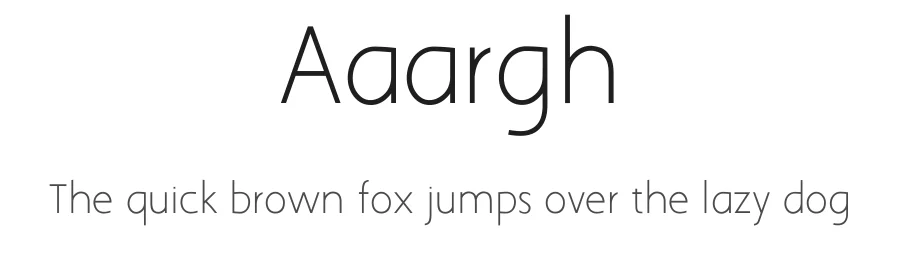
About Fh Space Font
Fh Space is a sans-serif font designed by Fictionalhead Design. It includes 98 glyphs, a regular weight, OTF (CFF) format, and 104 languages. Fh Space is free to download; check the license details on this page before commercial use. Sans-serif fonts like Fh Space work best for clean body text, user interfaces, branding, and modern layouts.
Fh Space Font is a versatile sans-serif font that works for both headings and body text. Pair it with a contrasting serif or slab serif font to add visual interest and a clear distinction between titles and body copy.